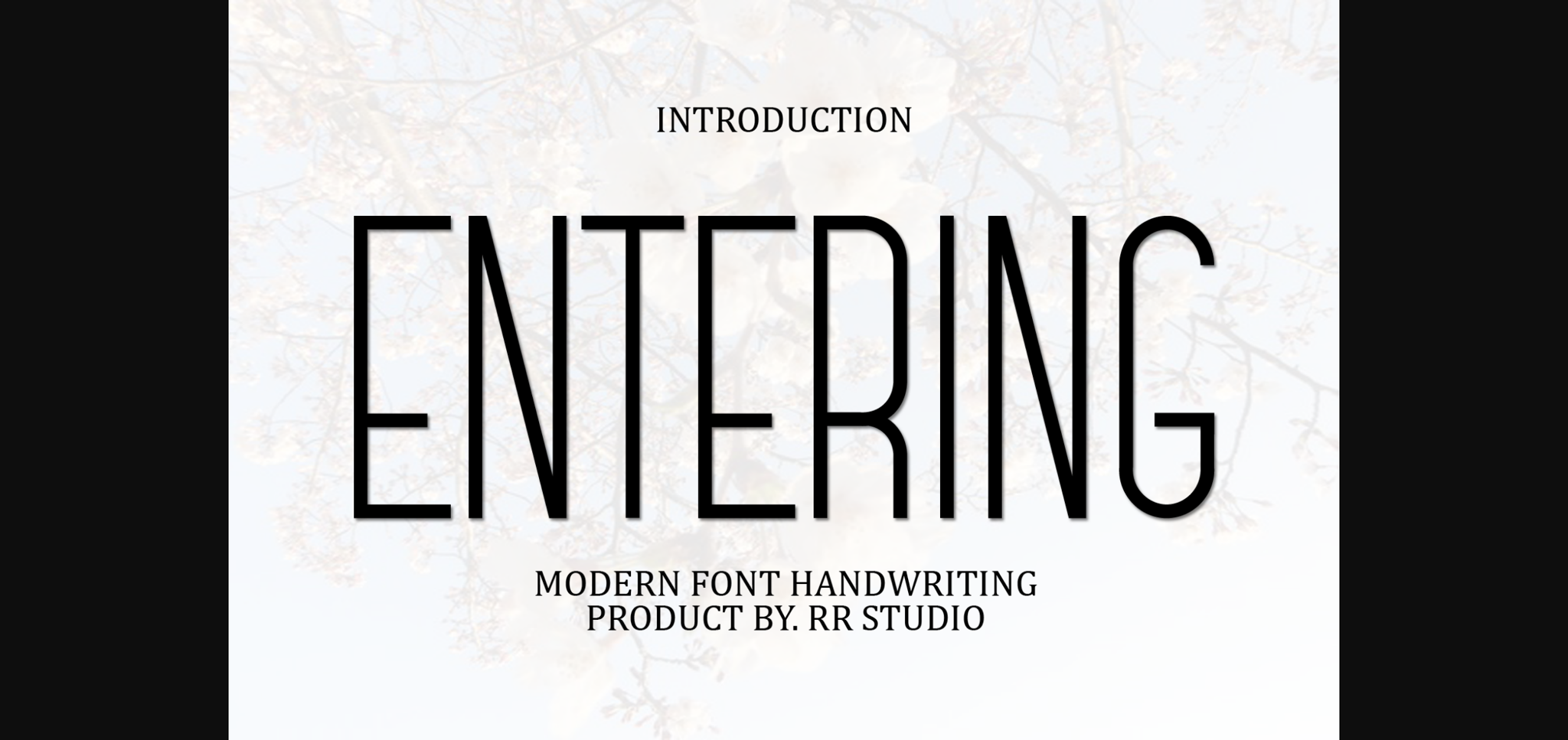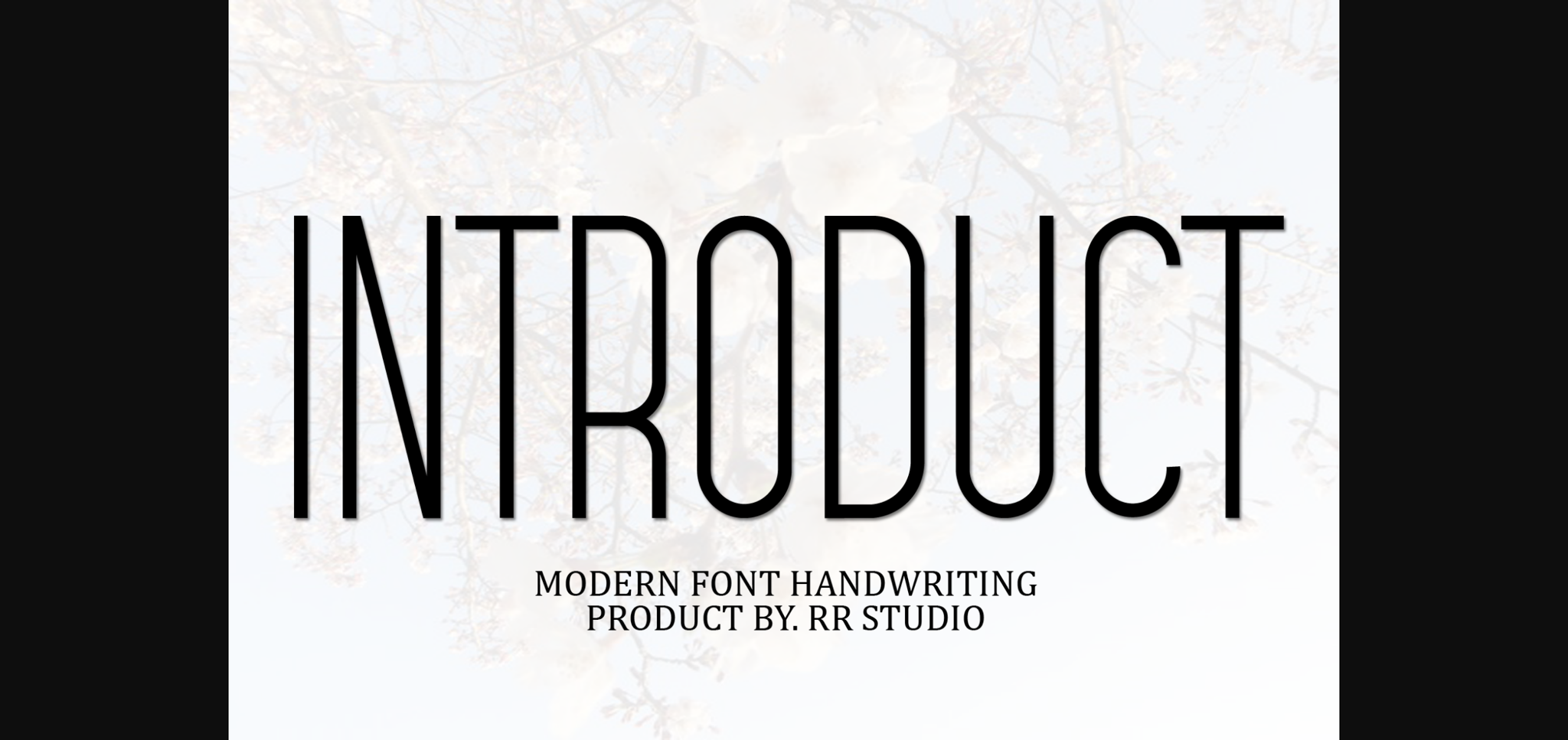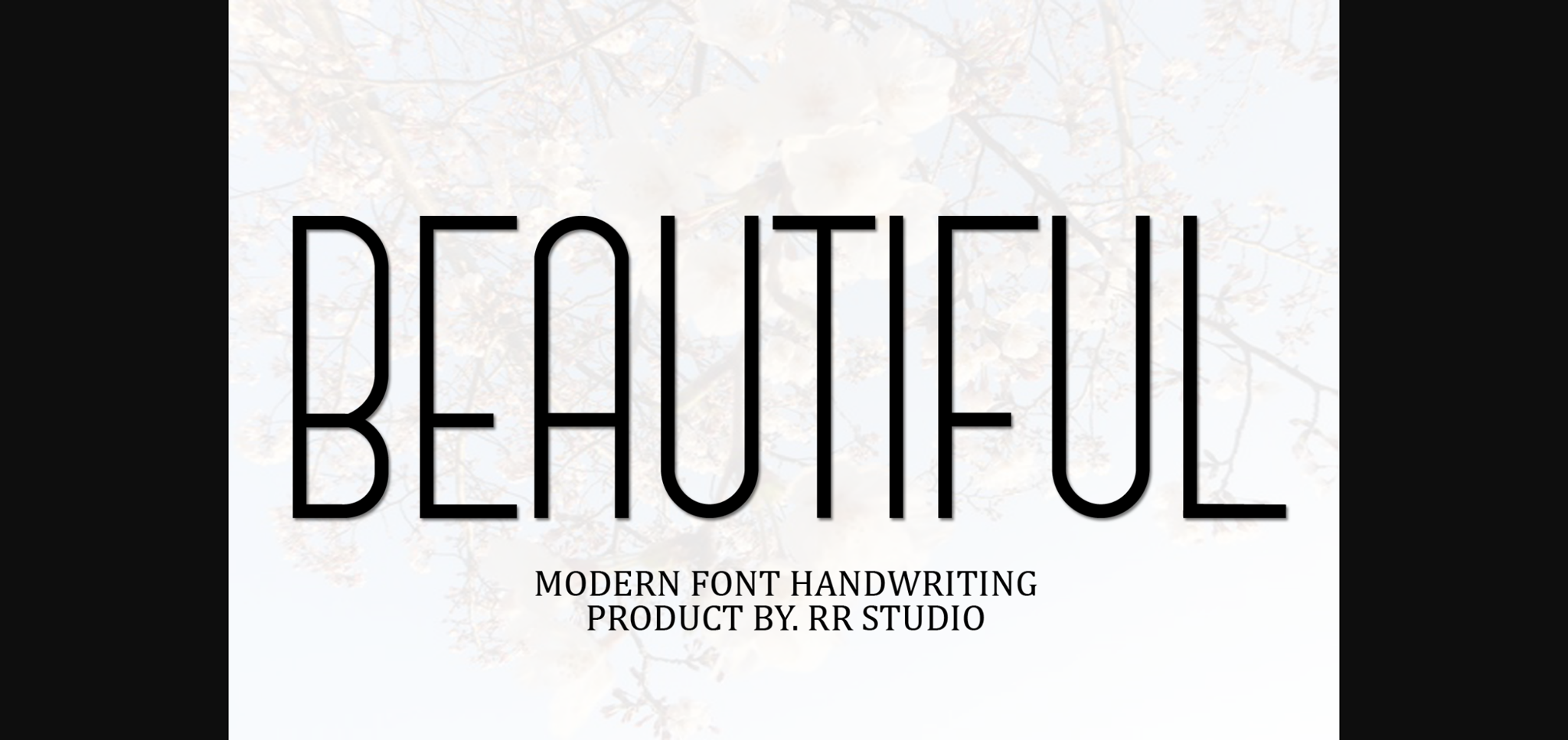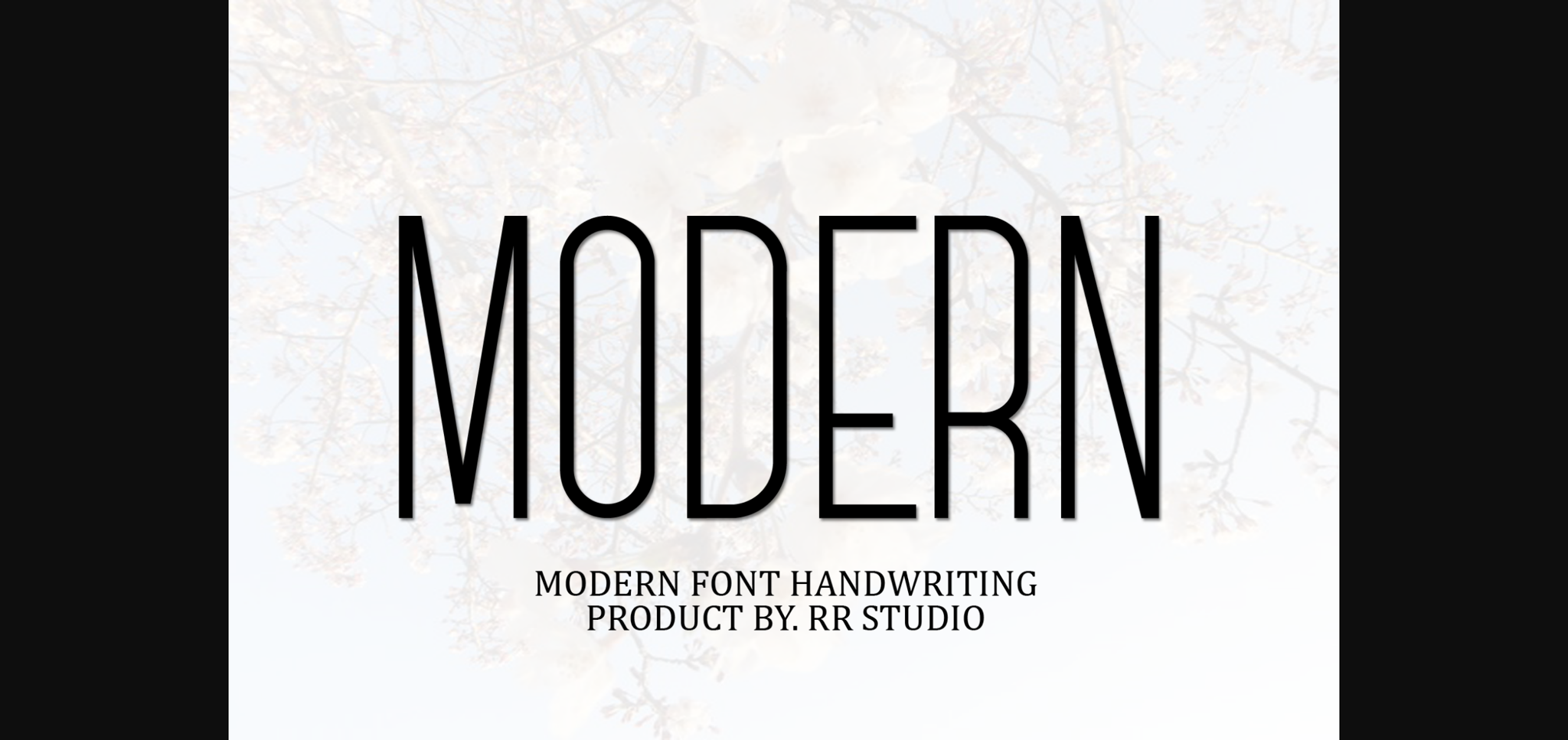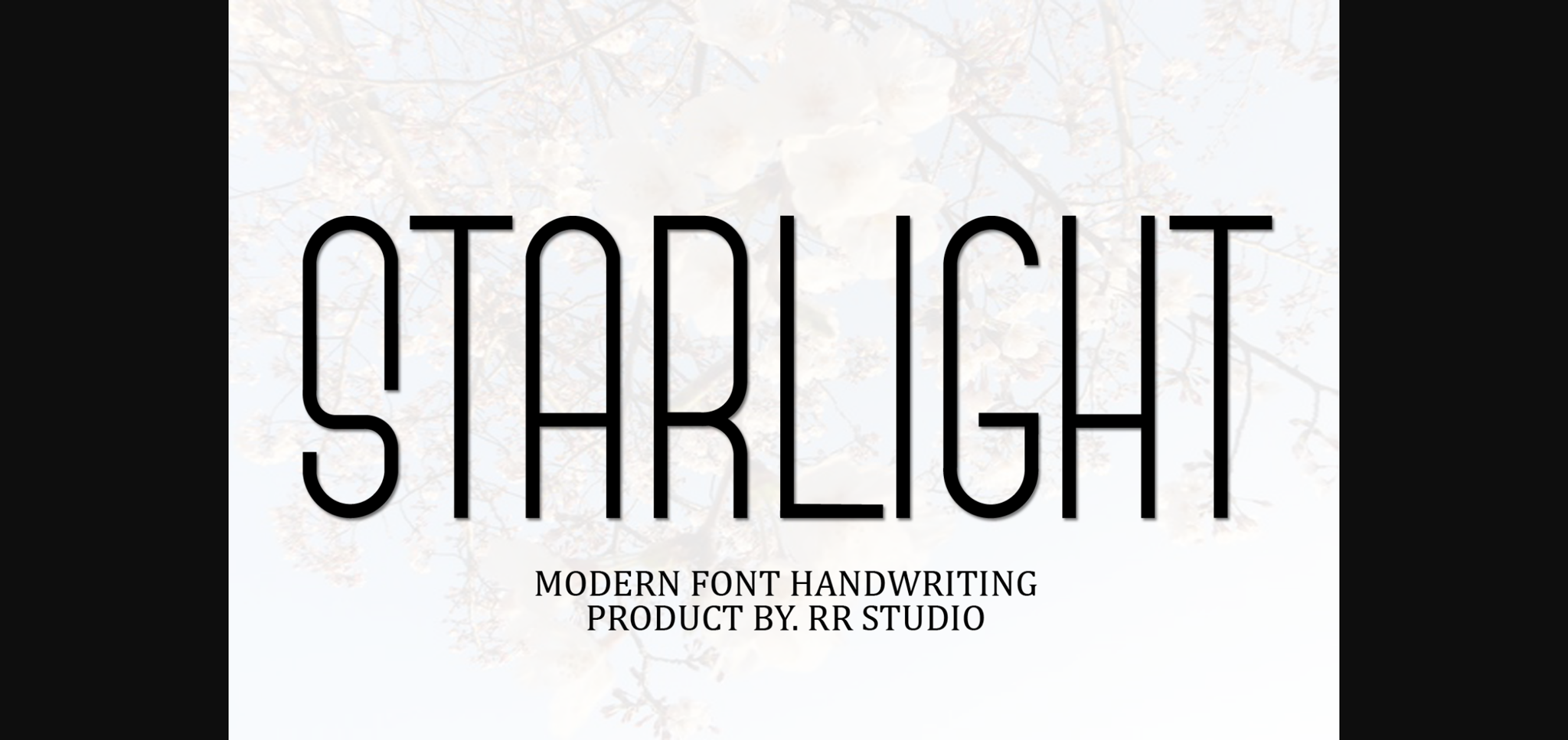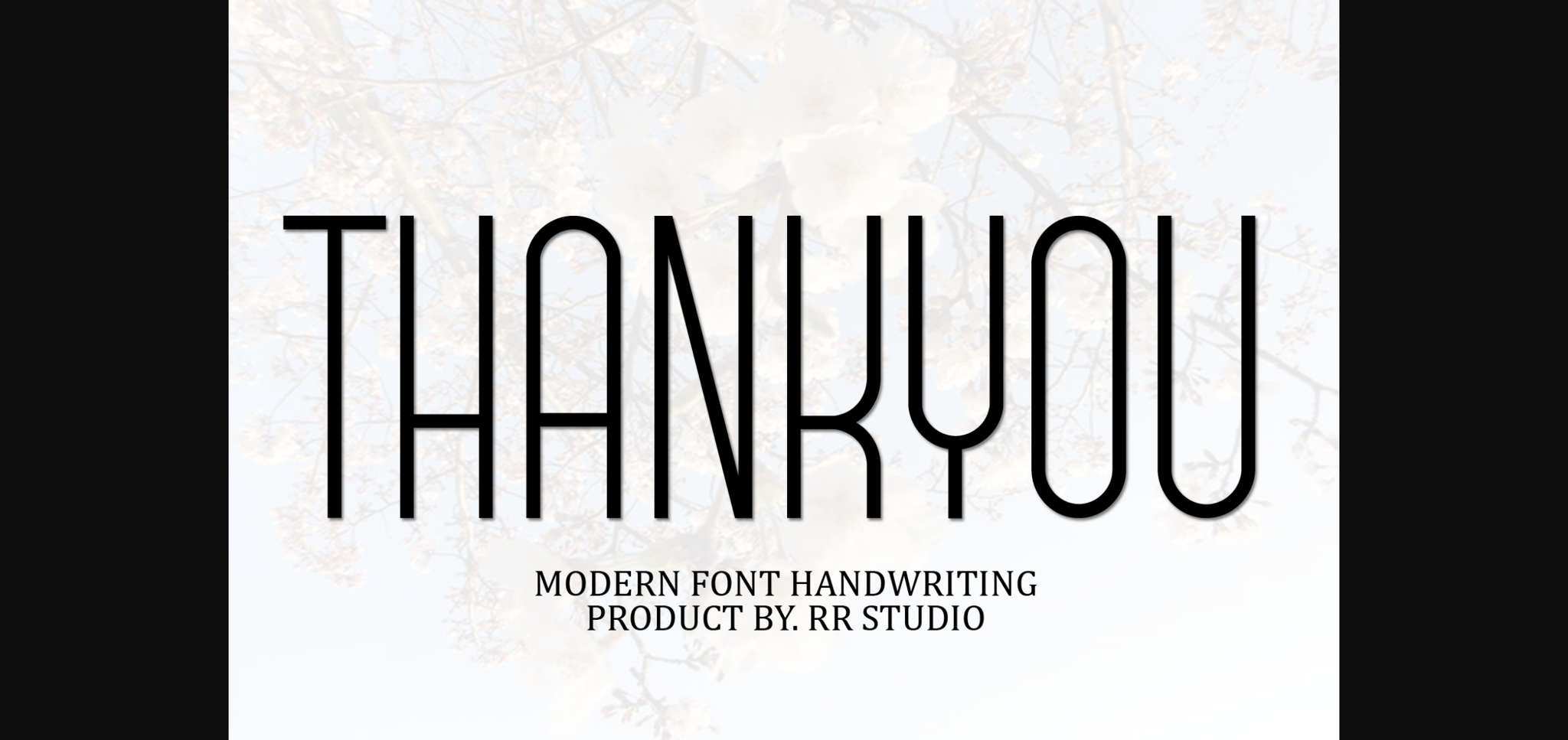
Entering Font
About Entering Font
Entering is a fun and quirky sans-serif font. No matter the topic, this font will be an incredible asset to your fonts’ library, as it has the potential to elevate any creation.